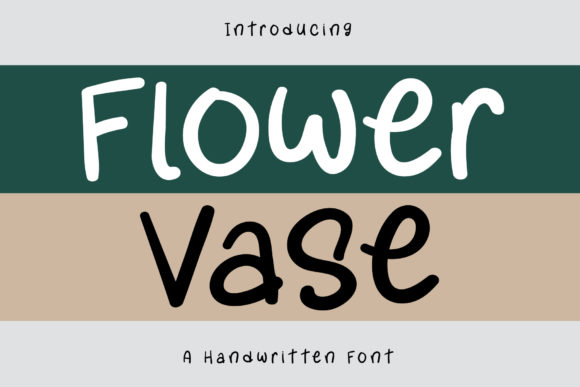
Buckle up, dear typography enthusiasts, and prepare to be captivated by the Flower Vase Font, an enchanting script font that exudes an air of whimsy and carefree elegance. Crafted by the visionary artist Wanida Toffy, this font is not merely a collection of letters; it's an artistic journey that invites you to explore the realms of creativity.
Step into an ethereal garden of words, where the Flower Vase Font dances gracefully across your designs, leaving a trail of beauty in its wake. Its relaxed theme and lovely style create a symphony of visual harmony, whether you're designing wedding invitations, fashion posters, or heartfelt letters.
Let your imagination bloom as you witness the Flower Vase Font transform ordinary text into captivating expressions. Its organic curves and elegant swirls evoke a sense of artistic flair, adding a touch of sophistication to any project.